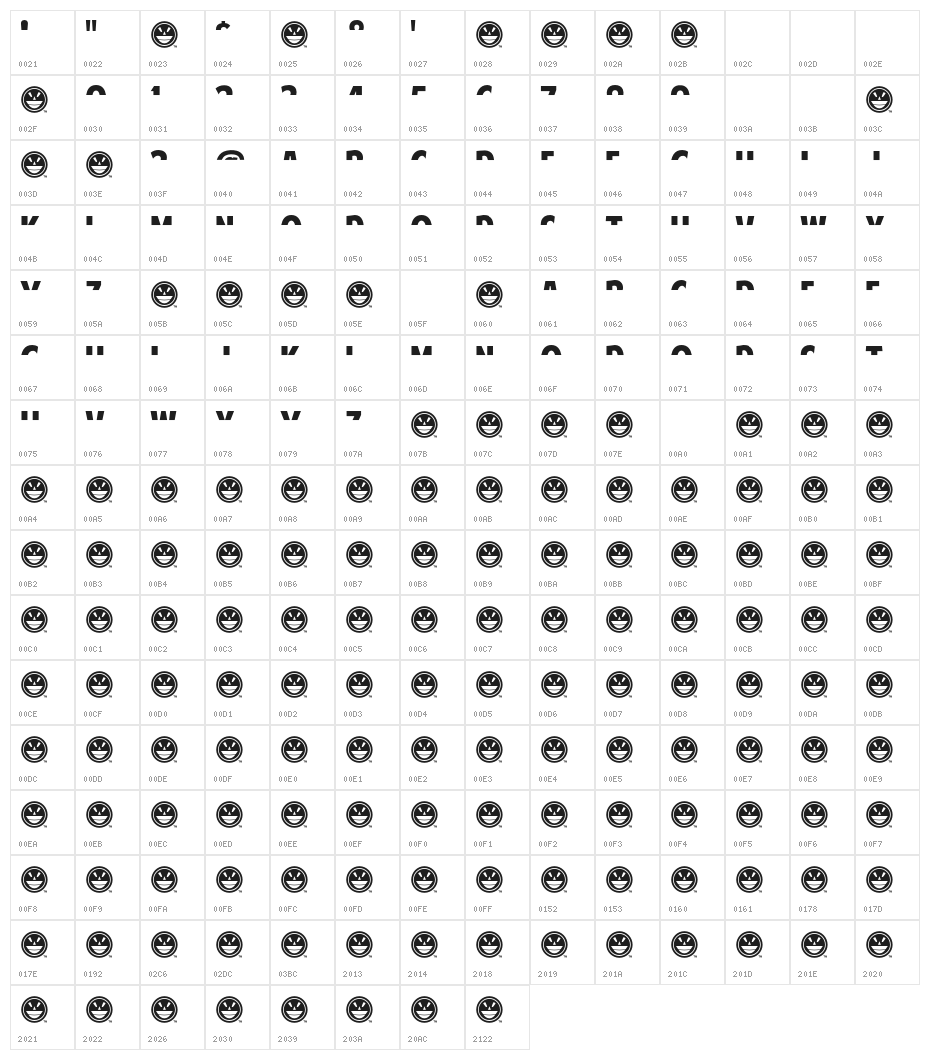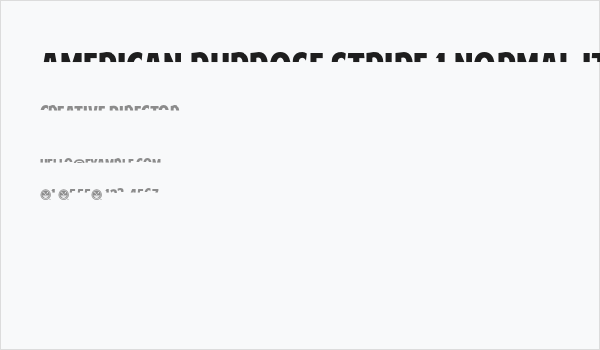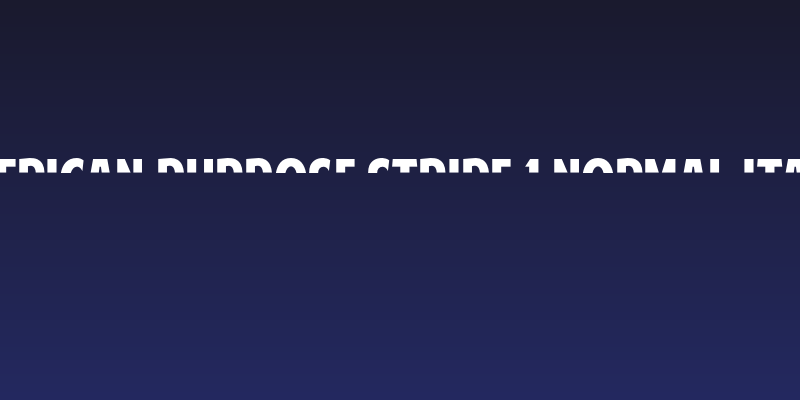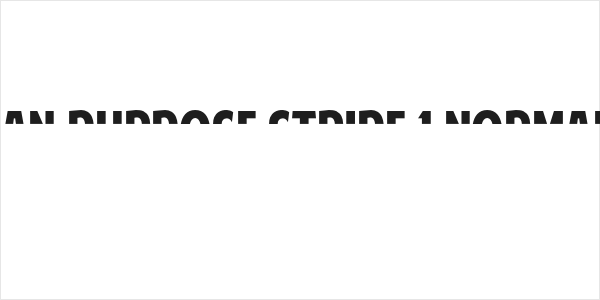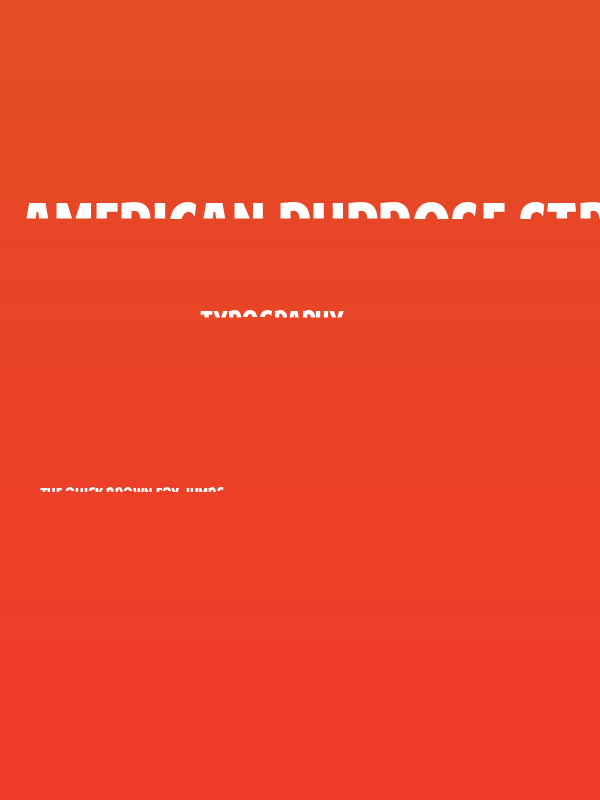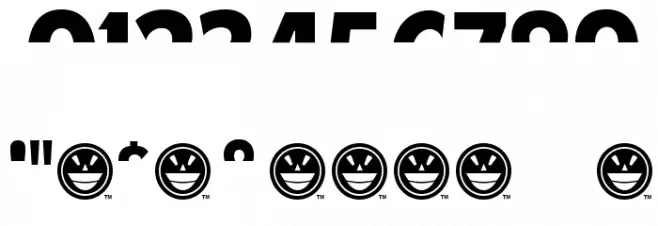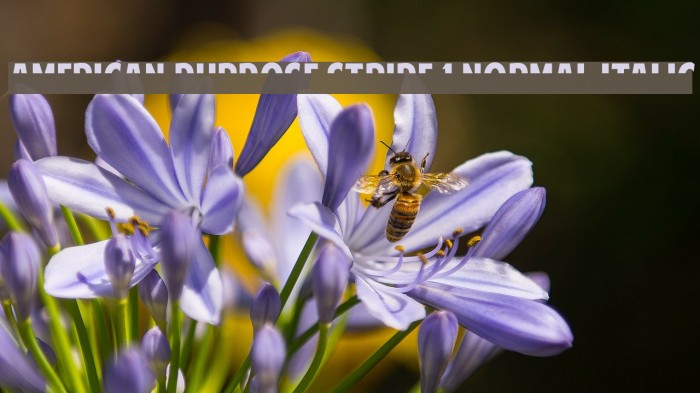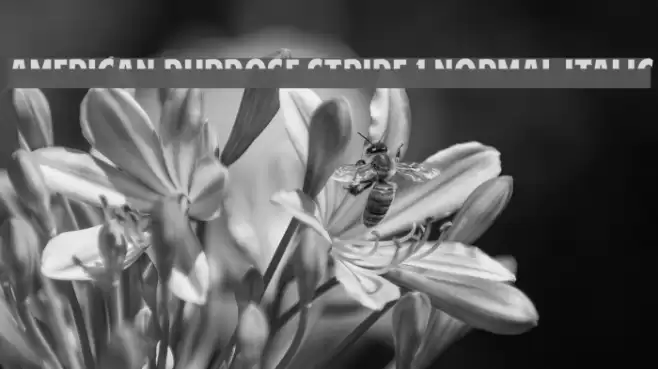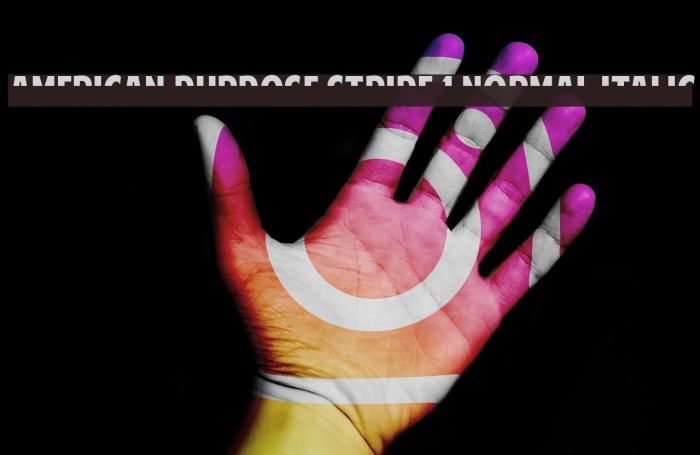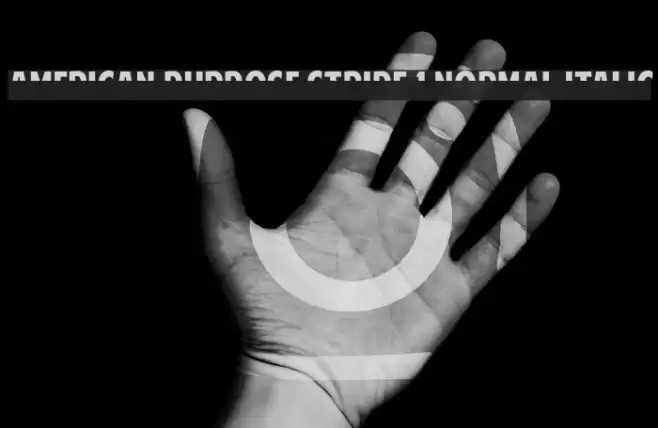
American Purpose STRIPE 1 Normal Italic Font
American Purpose STRIPE 1 Normal Italic Description
This font features a bold, striking design with a modern aesthetic. The characters are constructed with thick, uniform strokes that create a strong visual impact. The uppercase letters are particularly prominent, with a geometric style that emphasizes their boldness. The lowercase letters maintain the same weight, ensuring consistency across the typeface. The numerals are equally bold, matching the overall style of the alphabet. Special characters are included, adding versatility to the font. The design is clean and impactful, making it suitable for attention-grabbing headlines and logos.